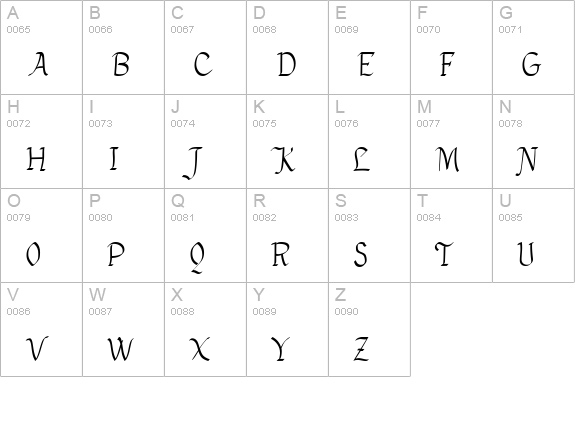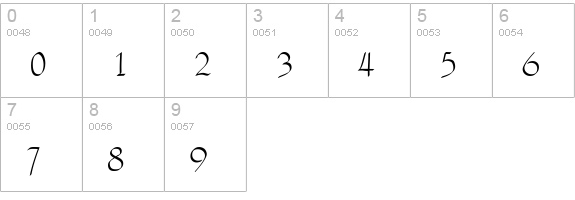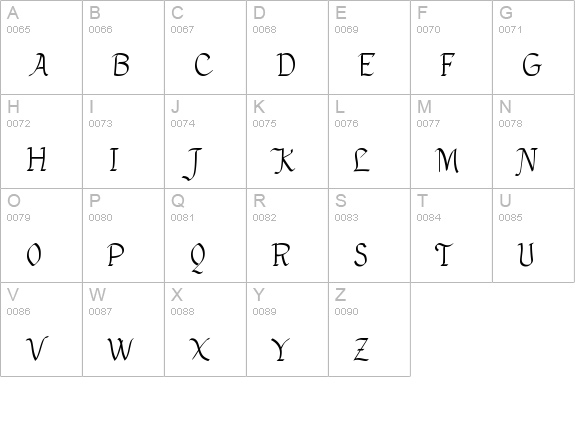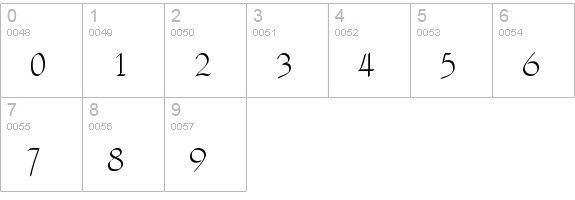
GretchenHello Plain Font Details
GretchenHello Plain font is a modern and stylish typeface that exudes elegance and sophistication. With its clean lines and sleek design, this font is perfect for a wide range of creative projects. Whether you're designing a logo, creating a poster, or crafting a website, GretchenHello Plain font will add a touch of class to your work. The best part? GretchenHello Plain font is completely free to download at FontsMarket.com. That's right, you can get this stunning font without spending a dime. So why wait? Download GretchenHello Plain font today and take your designs to the next level!